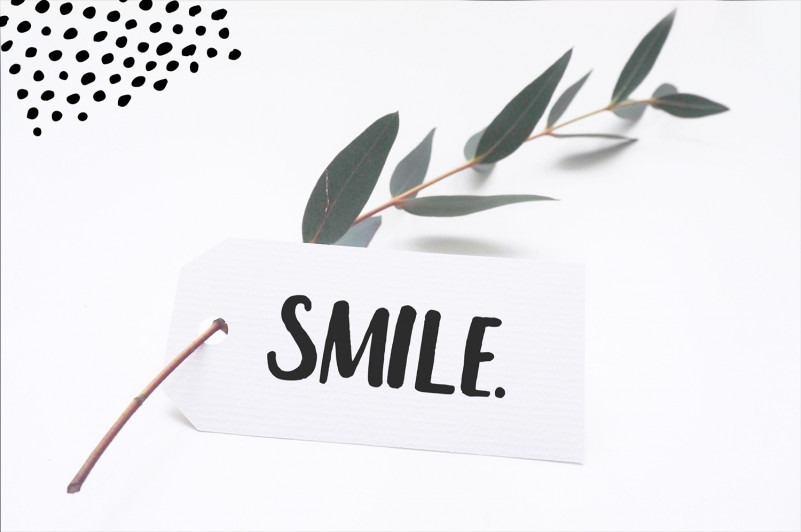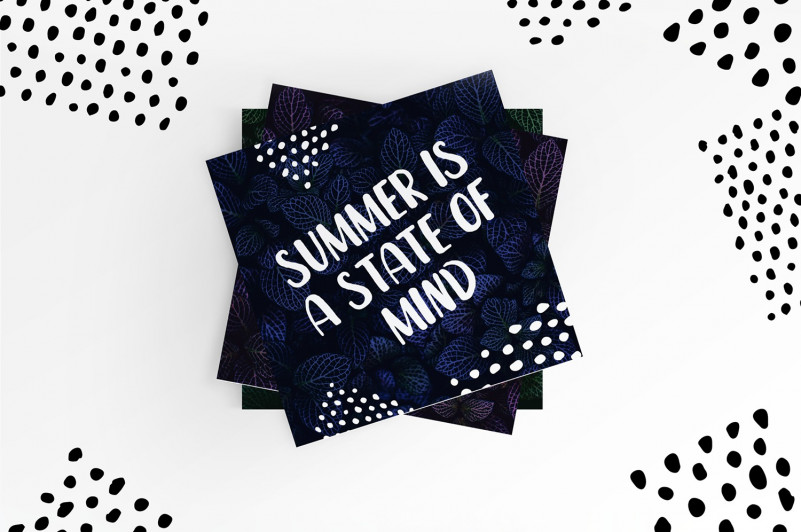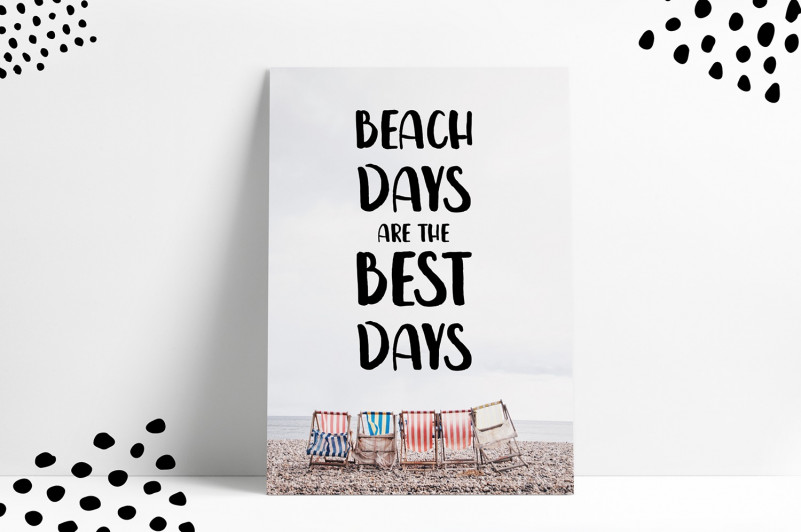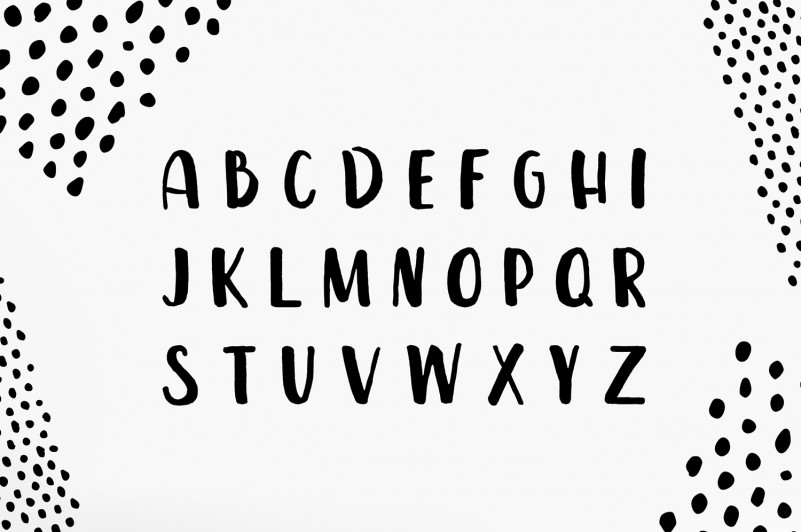
Leira Brush Font
Start a new day with a hand drawn brush font, it’s a cute handbrush style font, the perfect font for logos with hand drawn styles, invitations, quotes and other designs. Introducing Leira Font. It’s designed and shared by Gatis Vilaks. It’s a hand drawn brush uppercase font. This font has handwritten feel so it will give your designs personal touch. Bold characters will stand out and be easy to read. It’s great for creating identities, logos, posters, cards and packaging design. Uppercase, lower case letters, numbers and symbols included. Latin Extended characters.